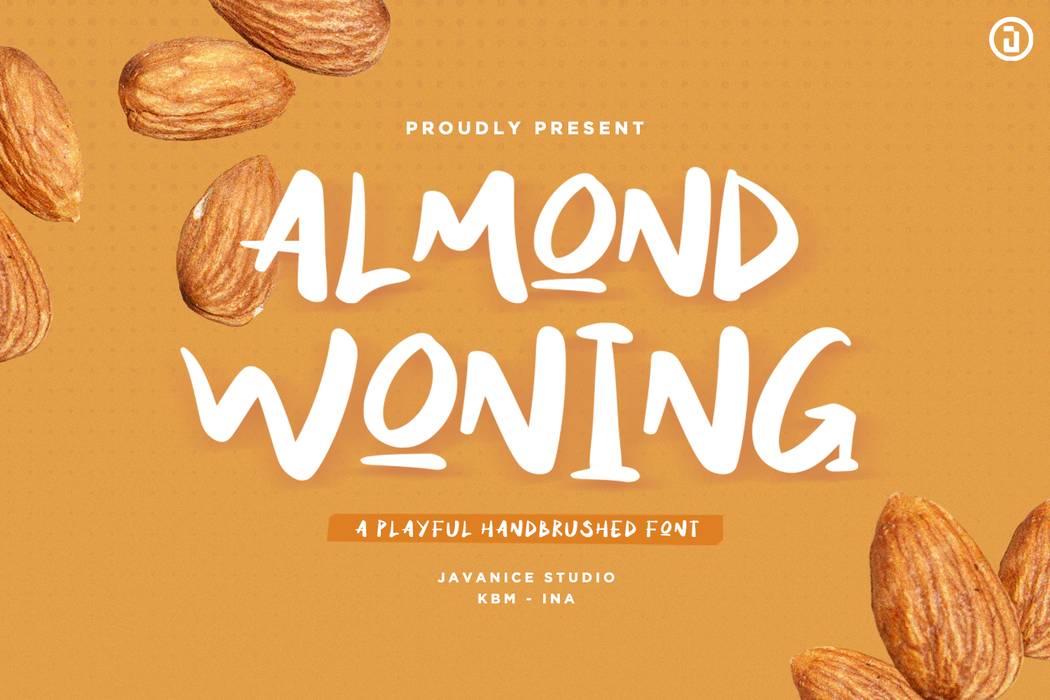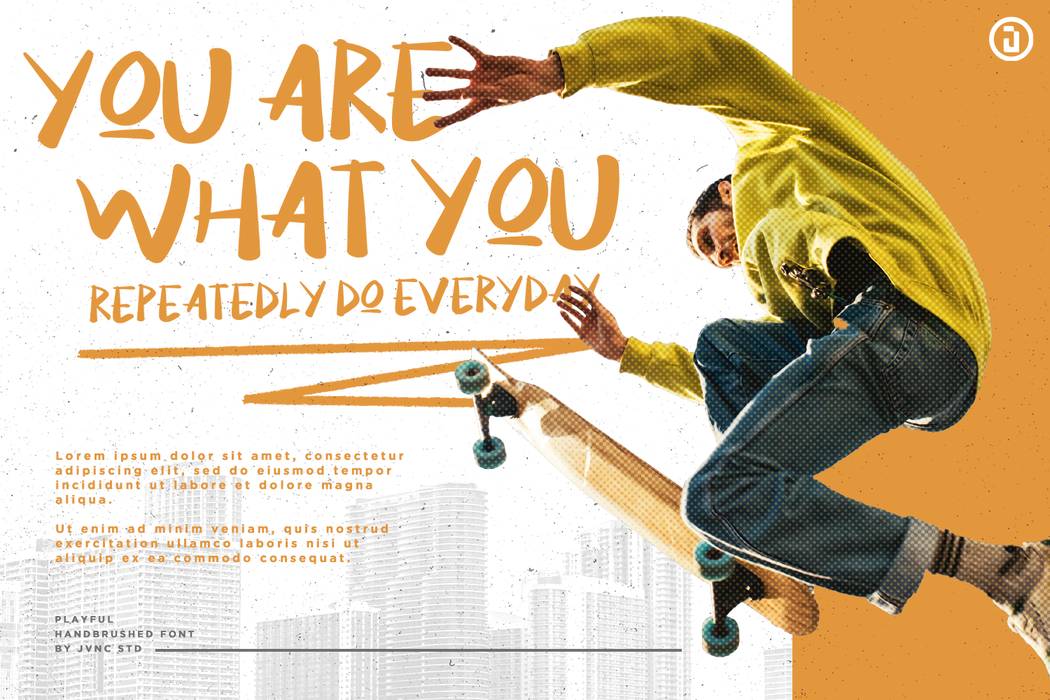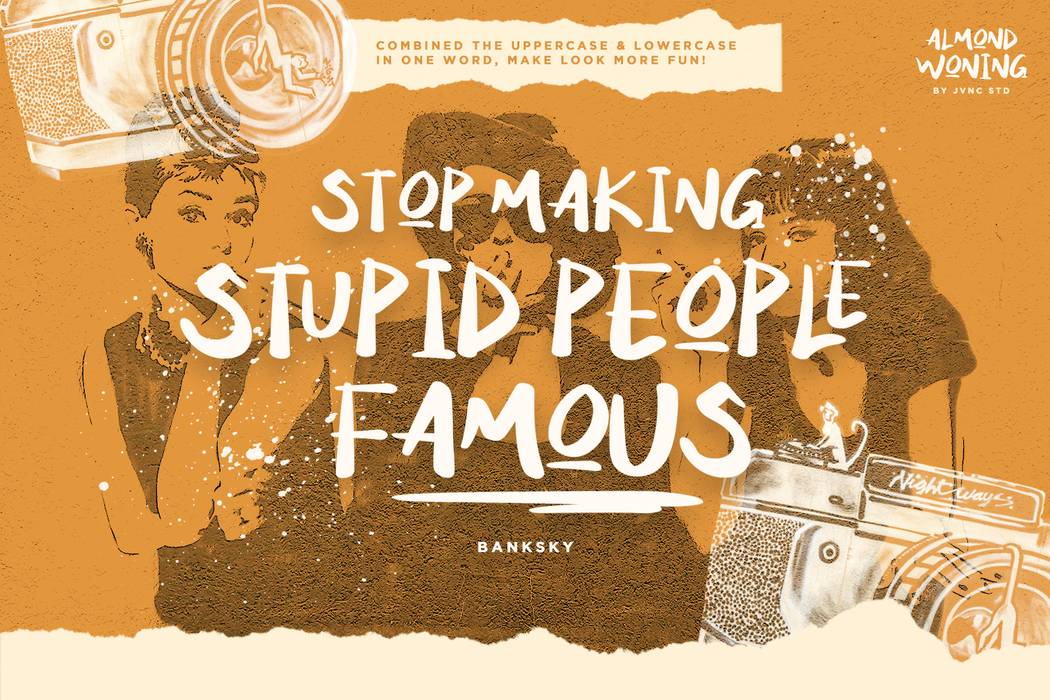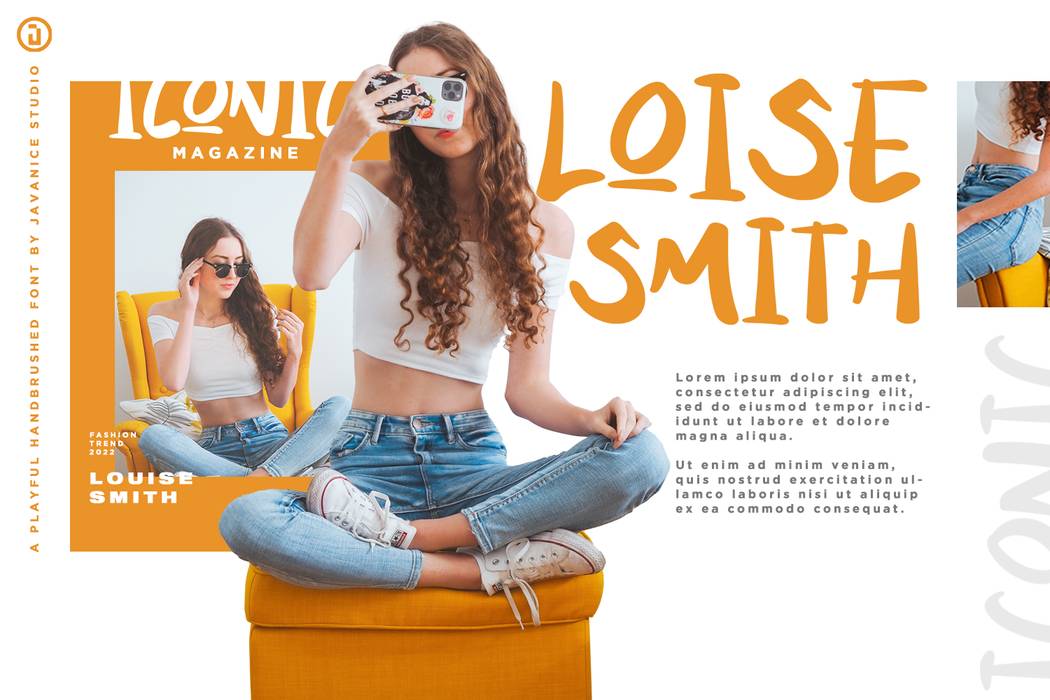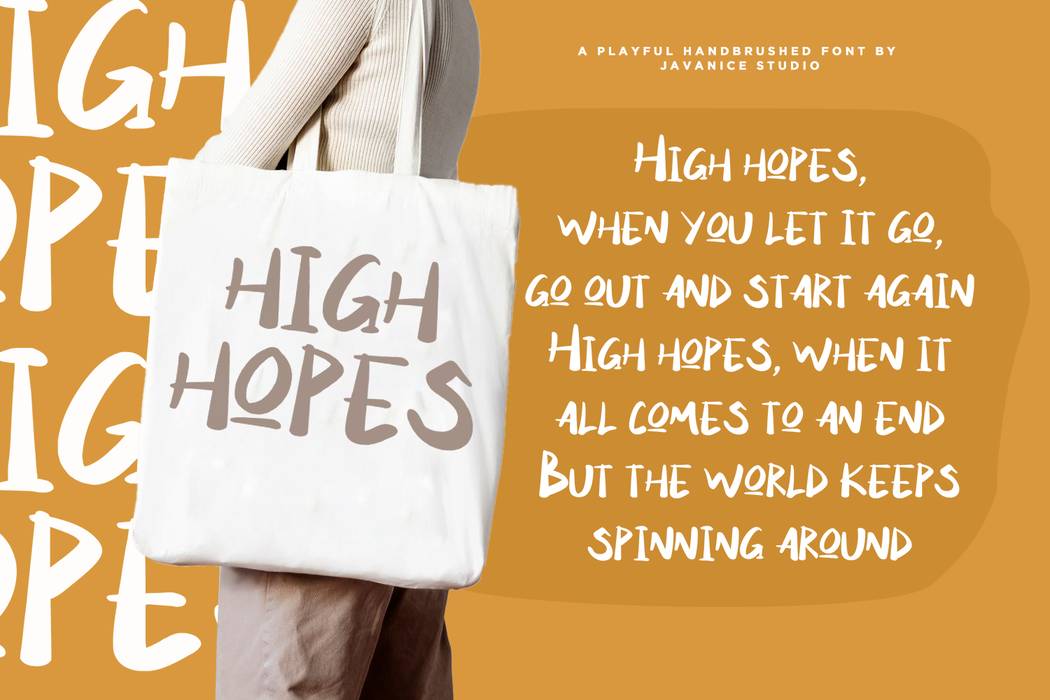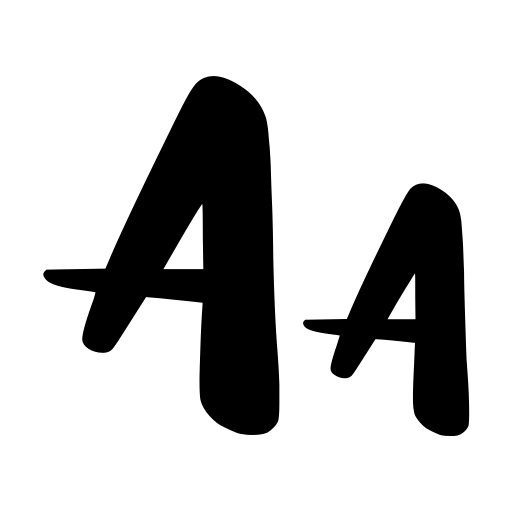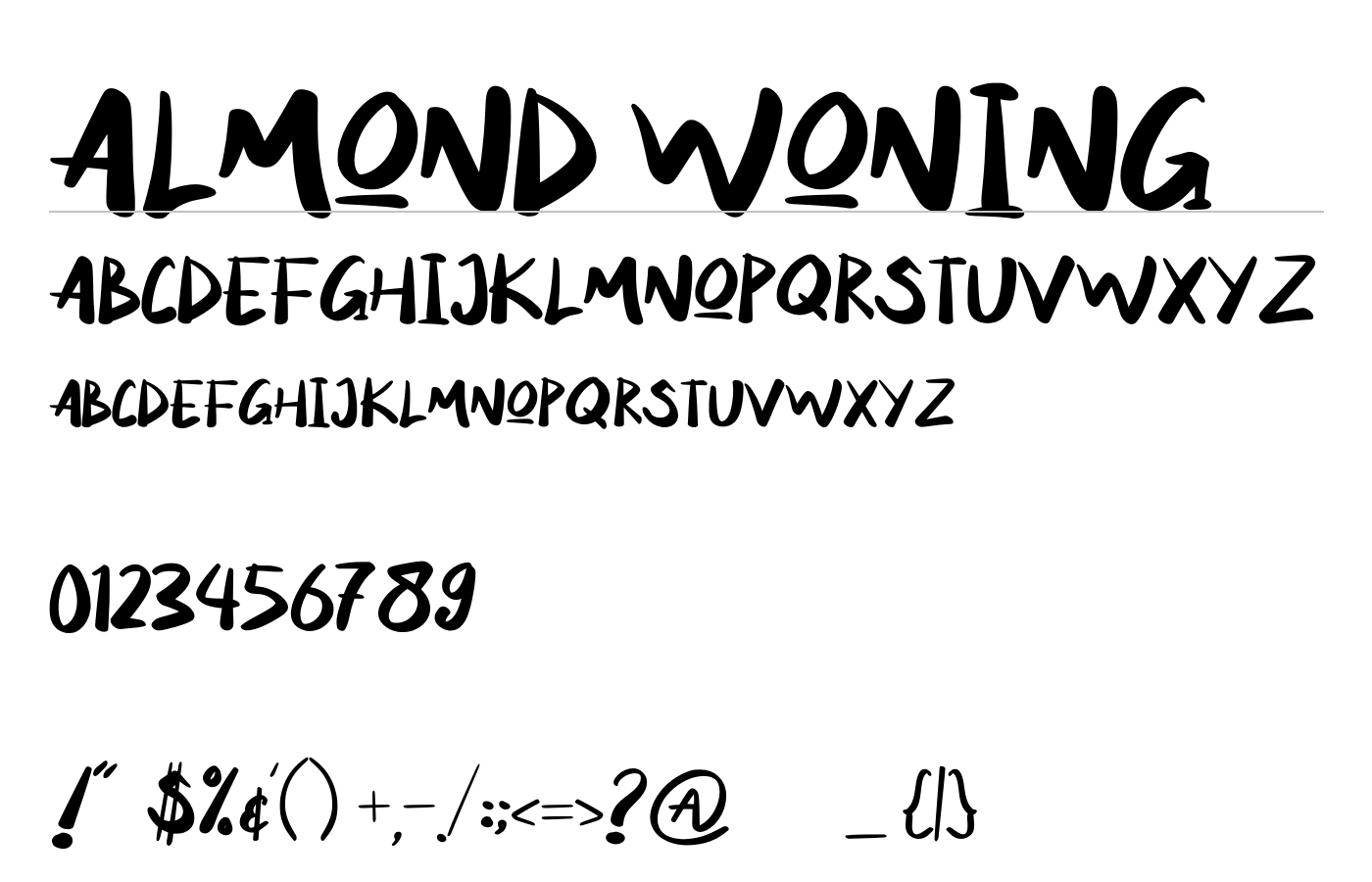
Almond Woning is a playful, handwritten sans serif font characterized by its bold, uneven strokes and casual, energetic feel. It features irregular shapes and a lively rhythm that make it suitable for informal, creative projects where a friendly and approachable tone is desired. This font works well for headlines, branding, and designs that aim to convey fun, spontaneity, and personality.
Almond Woning Font
About Almond Woning Font
| Font family | Almond Woning Font |
| Designer | JAVANICE STUDIO |